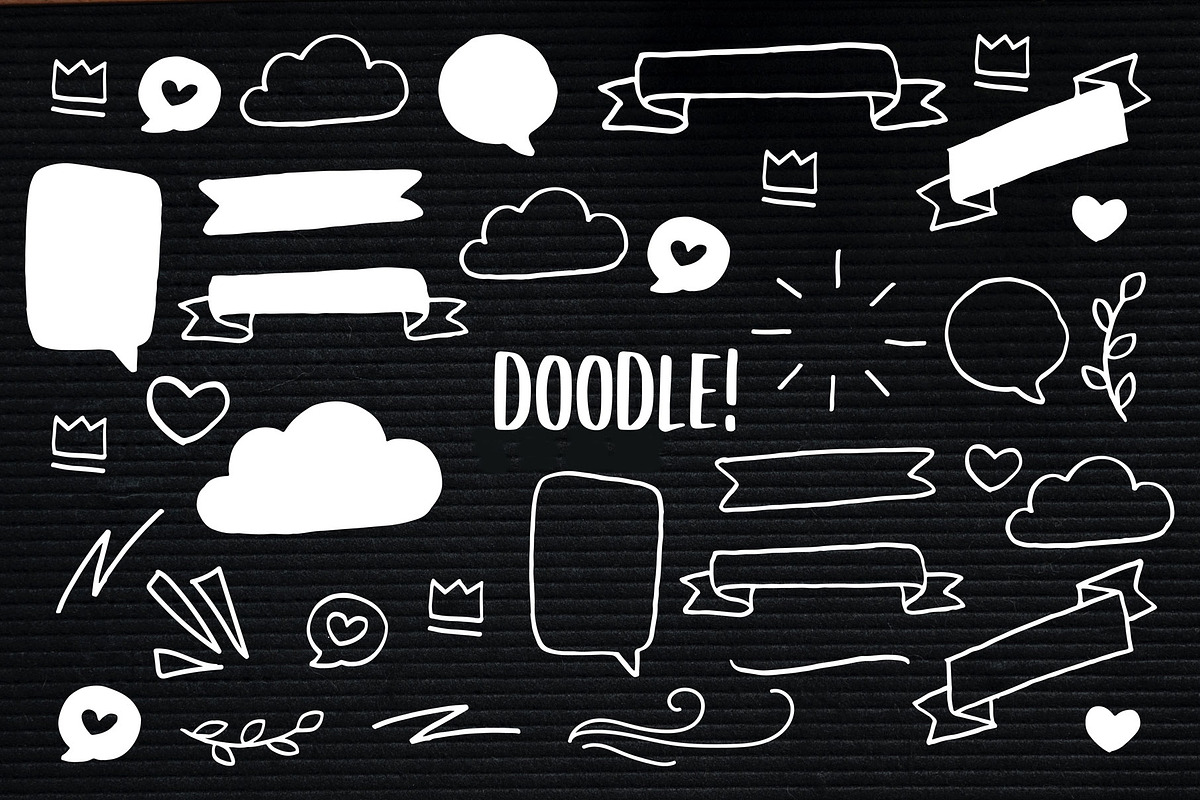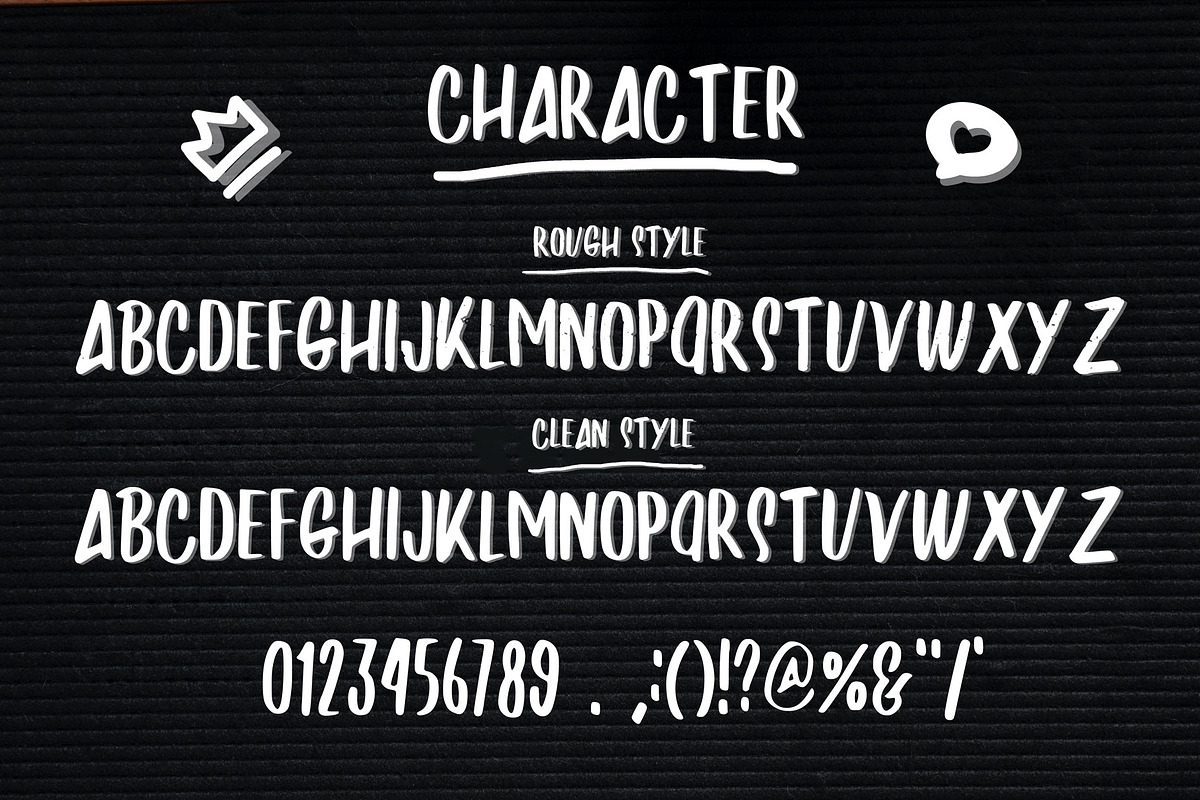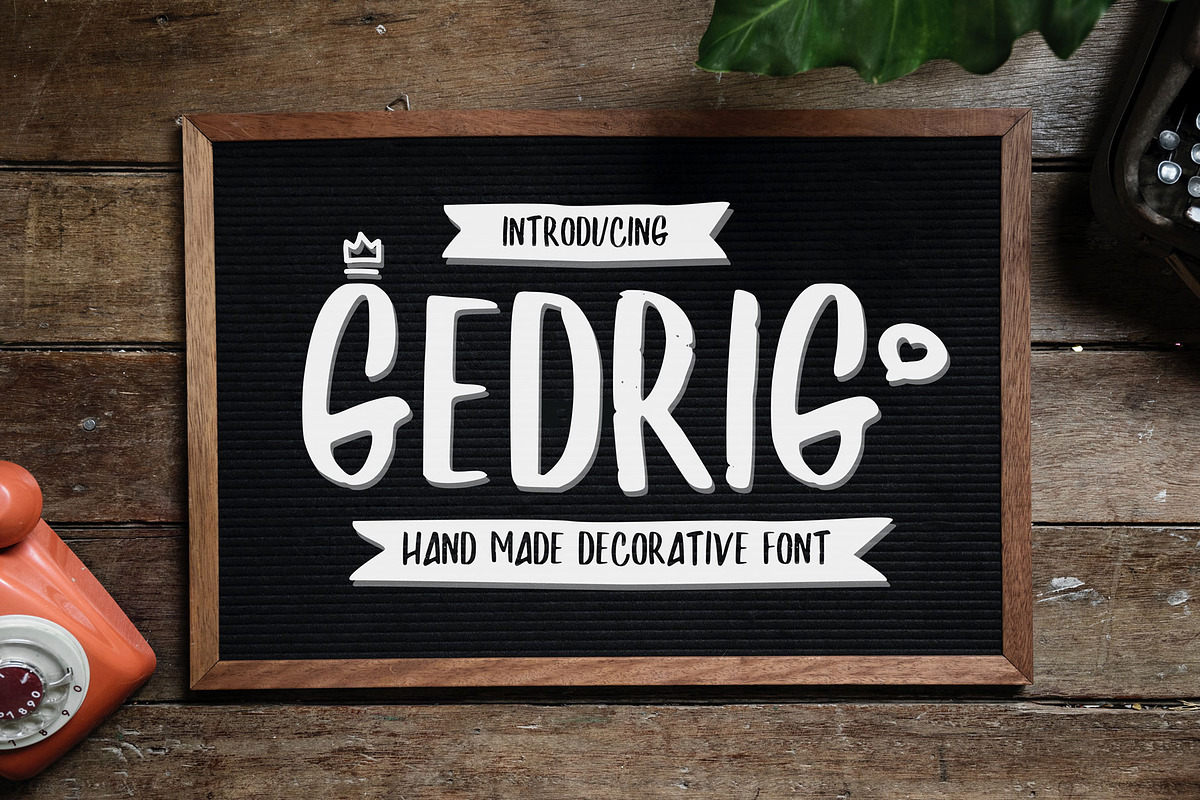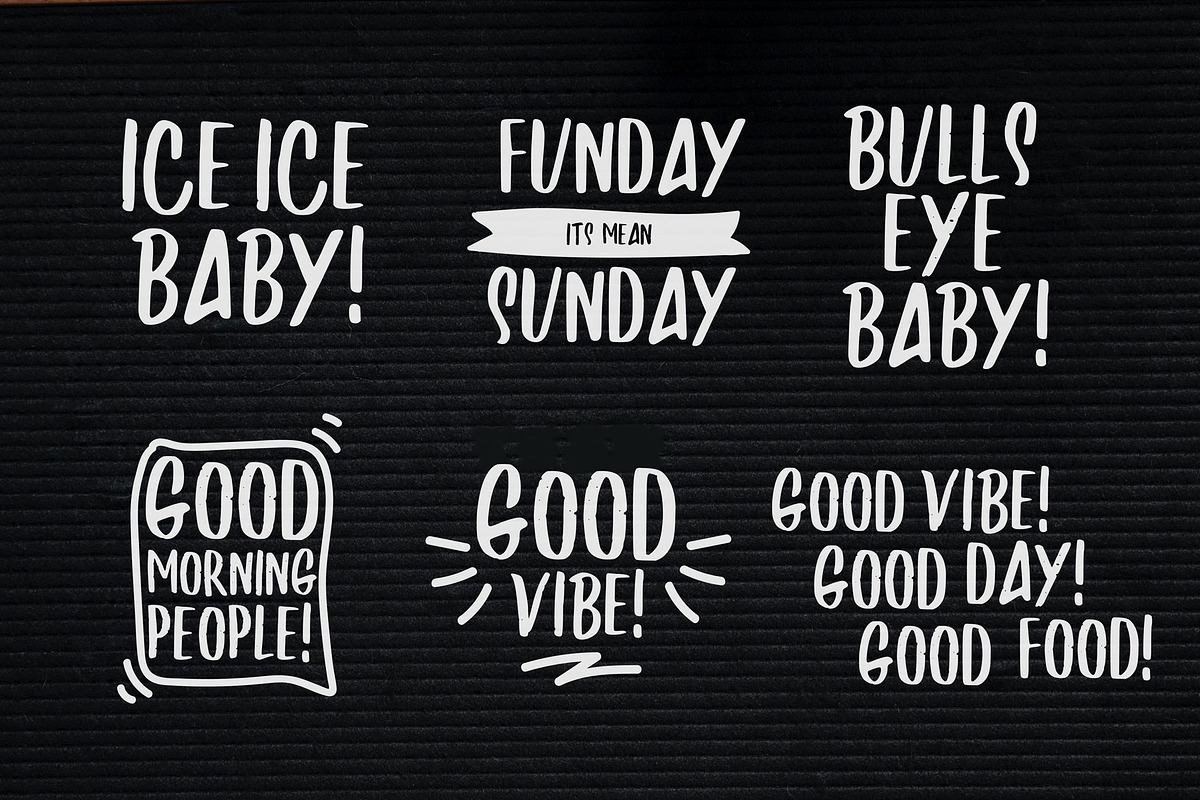
GEDRIG | Hand Made Decorative Font
font inspired by UPPERCASE in java we call it Gedrig. It is based on irregular scratches from a brush pen. Normally a brushpen will produce a beautiful UPPERCASE character, so we tried to create an neat font that we call GEDRIG.
GEDRIG is a display font. So it is more suitable for making a poster design , promo materials, banners, t-shirts or a design that would like to display the courage of expression.
GEDRIG include doodles and not bring lowercase, instead we make a rough style to create a vintage design and more personalized.